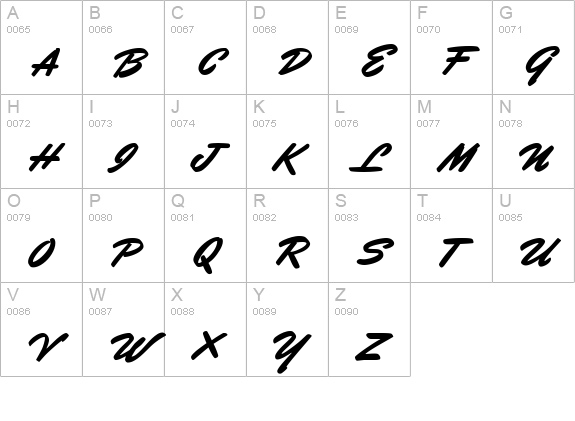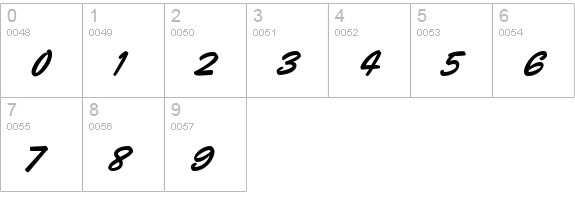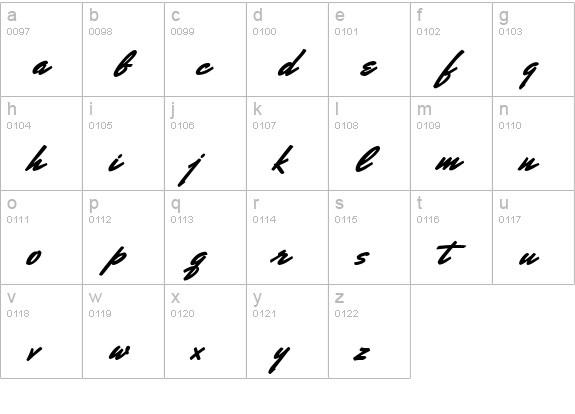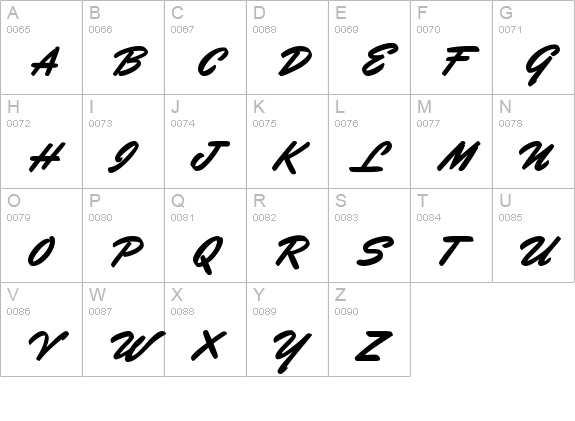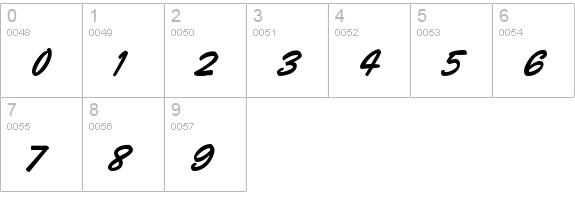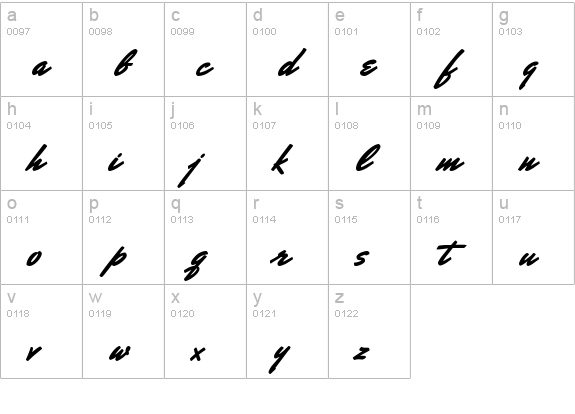
Mr Stalwart Font Details
Mr Stalwart font is a bold and strong typeface that exudes confidence and reliability. With its clean lines and sturdy appearance, this font is perfect for making a statement in any design project. Whether you're looking to convey strength and stability or simply want to make a bold impression, Mr Stalwart font is the perfect choice. The best part? Mr Stalwart font is completely free to download at FontsMarket.com. This means you can add this powerful font to your collection without spending a dime. So go ahead, unleash your creativity and elevate your designs with the timeless appeal of Mr Stalwart font.